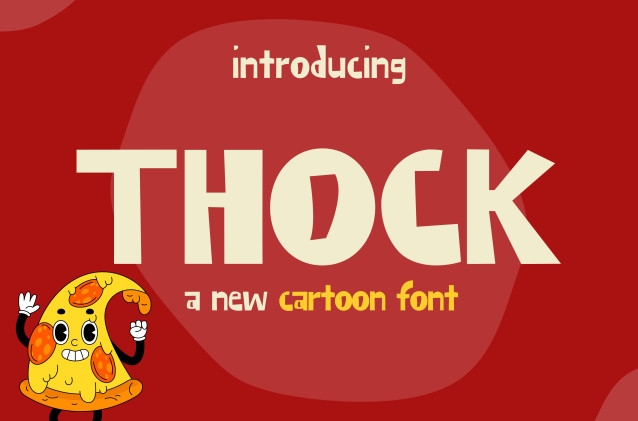
Thock Display Font
Thock Display Font is a chunky, comic, and cartoon display font. With its neat and joyful personality, this font will enhance any project you wish to create!